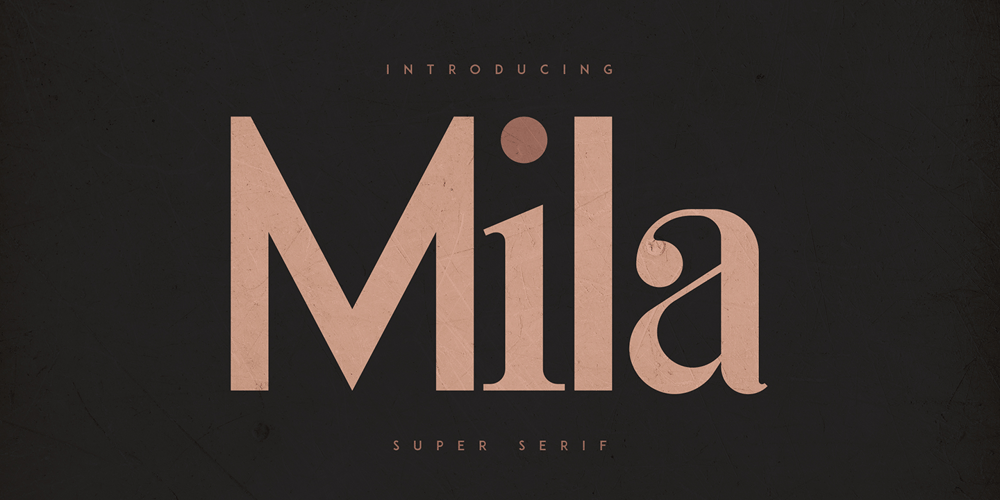
Mila VP Font Family was designed by Vladimir Fedotov, Plamen Petrov and published by VP Creative Shop. Mila VP contains 1 styles and family package options. Introducing Mila – Innovative Super Serif FontMila is fusion of sans serif and serif styles, loaded with ligature glyphs and multilingual support. Very versatile font that works great in large and small sizes.Mila is perfect for branding projects, home-ware designs, product packaging, magazine headers – or simply as a stylish text overlay to any background image. Uppercase, lowercase, numeral, punctuation & Symbol Regular Ligatures Never seen before Multilingual support Feel free to contact me if you have any questions!Mock ups and backgrounds used are not included.Thank you! Enjoy!